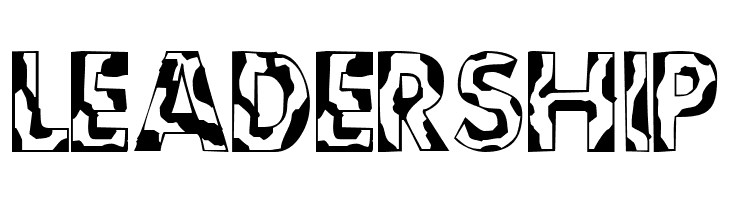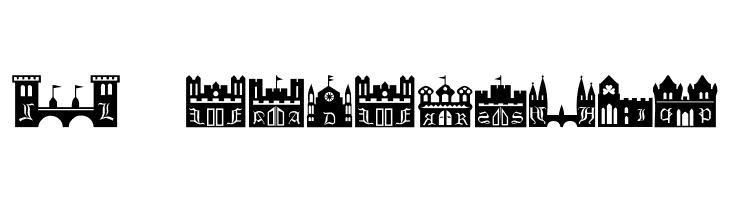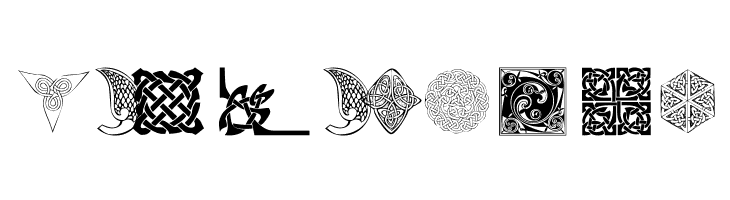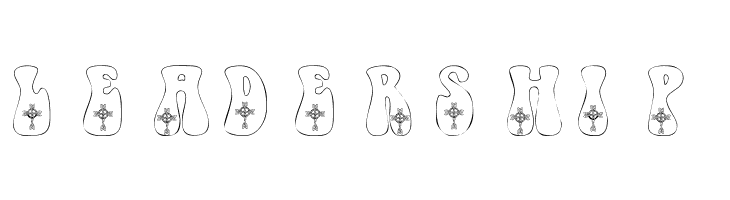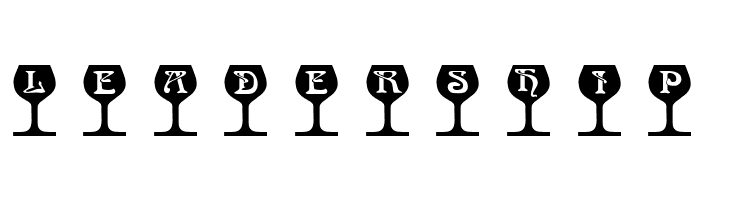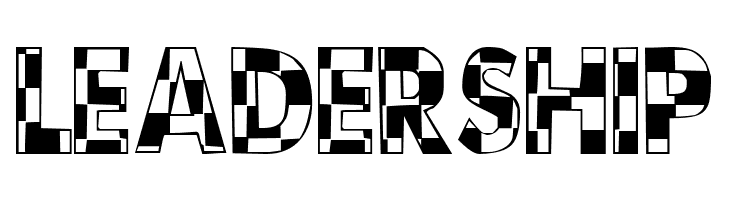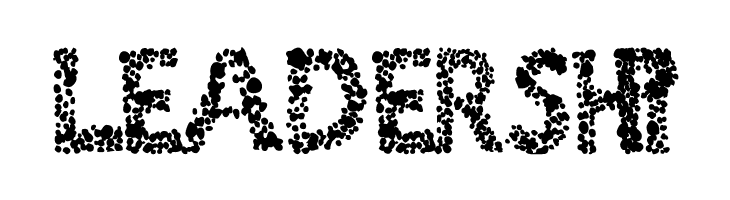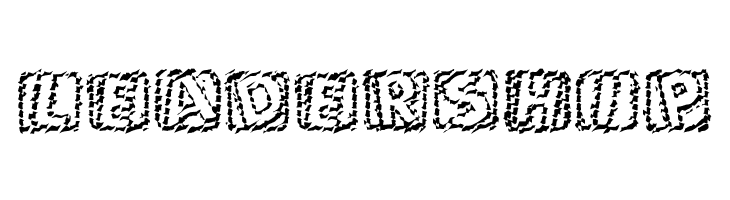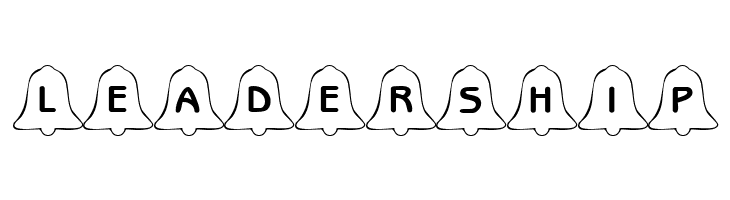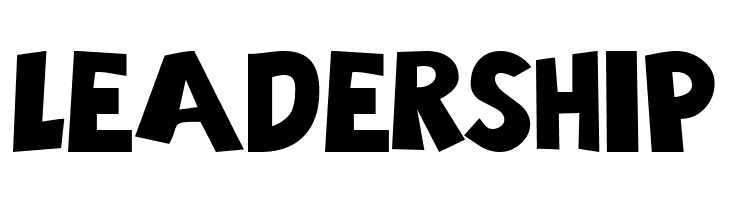
( Nght's Place - www.crosswinds.net/~nghtmvs/font/fonts1.html ) A bold, camouflage-patterned font with a playful and adventurous style. Download 142 Downloads@WebFont
( Nght's Place - www.crosswinds.net/~nghtmvs/font/fonts1.html ) A whimsical font styled to resemble candles, complete with wax drips and flames. Download 90 Downloads@WebFont
( Nght's Place - www.crosswinds.net/~nghtmvs/font/fonts1.html ) A decorative font resembling castle silhouettes with intricate medieval details. Download 107 Downloads@WebFont
( Nght's Place - www.crosswinds.net/~nghtmvs/font/fonts1.html ) Ornamental Celtic knotwork and symbol dingbats. Download 106 Downloads@WebFont
( Nght's Place - www.crosswinds.net/~nghtmvs/font/fonts1.html ) A decorative font with Celtic knot designs within bold, rounded characters. Download 76 Downloads@WebFont
( Nght's Place - www.crosswinds.net/~nghtmvs/font/fonts1.html ) A decorative font with characters inside chalice silhouettes. Download 64 Downloads@WebFont
( Nght's Place - www.crosswinds.net/~nghtmvs/font/fonts1.html ) A bold, geometric font with a striking checkered pattern. Download 99 Downloads@WebFont
( Nght's Place - www.crosswinds.net/~nghtmvs/font/fonts1.html ) A bold, cheetah print-inspired decorative font with medium contrast. Download 200 Downloads@WebFont
( Nght's Place - www.crosswinds.net/~nghtmvs/font/fonts1.html ) A bold, chiseled font with a textured, hand-drawn effect. Download 78 Downloads@WebFont
( Nght's Place - www.crosswinds.net/~nghtmvs/font/fonts1.html ) A festive font with characters inside bell-shaped outlines, perfect for holiday themes. Download 106 Downloads@WebFont
( Nght's Place - www.crosswinds.net/~nghtmvs/font/fonts1.html ) A bold, chunky font with a playful and dynamic style. Download 238 Downloads@WebFont
( Nght's Place - www.crosswinds.net/~nghtmvs/font/fonts1.html ) A circuit-inspired font with intricate, tech-themed detailing. Download 263 Downloads@WebFont
( Nght's Place - www.crosswinds.net/~nghtmvs/font/fonts1.html ) A whimsical font with characters enclosed in heart shapes, perfect for romantic or playful designs. Download 131 Downloads@WebFont
( Nght's Place - www.crosswinds.net/~nghtmvs/font/fonts1.html ) A whimsical font with characters encased in clown faces, ideal for playful designs. Download 63 Downloads@WebFont
( Nght's Place - www.crosswinds.net/~nghtmvs/font/fonts1.html ) A playful font featuring bold letters with clown faces, perfect for fun projects. Download 82 Downloads@WebFont
( Nght's Place - www.crosswinds.net/~nghtmvs/font/fonts1.html ) Decorative cartoon dinosaur illustration font. Download 128 Downloads@WebFont
( Nght's Place - www.crosswinds.net/~nghtmvs/font/fonts1.html ) A playful, confetti-inspired decorative font with intricate geometric shapes. Download 111 Downloads@WebFont
( Nght's Place - www.crosswinds.net/~nghtmvs/font/fonts1.html ) A bold, distressed font with a corroded, textured appearance. Download 88 Downloads@WebFont
( Nght's Place - www.crosswinds.net/~nghtmvs/font/fonts1.html ) A playful font with characters inside rocket ships, ideal for adventurous themes. Download 71 Downloads@WebFont
( Nght's Place - www.crosswinds.net/~nghtmvs/font/fonts1.html ) A playful decorative font with critter-themed illustrations in each letter. Download 118 Downloads@WebFont
( Nght's Place - www.crosswinds.net/~nghtmvs/font/fonts1.html ) Cartoon dinosaur illustrations replace traditional letterforms. Download 125 Downloads@WebFont
( Nght's Place - www.crosswinds.net/~nghtmvs/font/fonts1.html ) A decorative font with characters inside key-shaped outlines. Download 59 Downloads@WebFont
( Nght's Place - www.crosswinds.net/~nghtmvs/font/fonts1.html ) A decorative font with floral embellishments on each character. Download 112 Downloads@WebFont
( Nght's Place - www.crosswinds.net/~nghtmvs/font/fonts1.html ) A decorative, dagger-inspired font with a gothic and medieval aesthetic. Download 70 Downloads@WebFont
( Nght's Place - www.crosswinds.net/~nghtmvs/font/fonts1.html ) A playful, decorative font with characters framed in calendar-like boxes, perfect for fun designs. Download 110 Downloads@WebFont
( Nght's Place - www.crosswinds.net/~nghtmvs/font/fonts1.html ) An ornate, decorative font with intricate floral and vine motifs. Download 94 Downloads@WebFont
( Nght's Place - www.crosswinds.net/~nghtmvs/font/fonts1.html ) A decorative font with characters encased in starburst designs, combining classic serif elements with modern flair. Download 160 Downloads@WebFont
( Nght's Place - www.crosswinds.net/~nghtmvs/font/fonts1.html ) Ornate heart and floral decorative pattern. Download 71 Downloads@WebFont
( Nght's Place - www.crosswinds.net/~nghtmvs/font/fonts1.html ) A decorative font with bold characters inside heart shapes, topped with doves. Download 81 Downloads@WebFont
( Nght's Place - www.crosswinds.net/~nghtmvs/font/fonts1.html ) A decorative font with bold uppercase letters inside gift box designs. Download 145 Downloads@WebFont